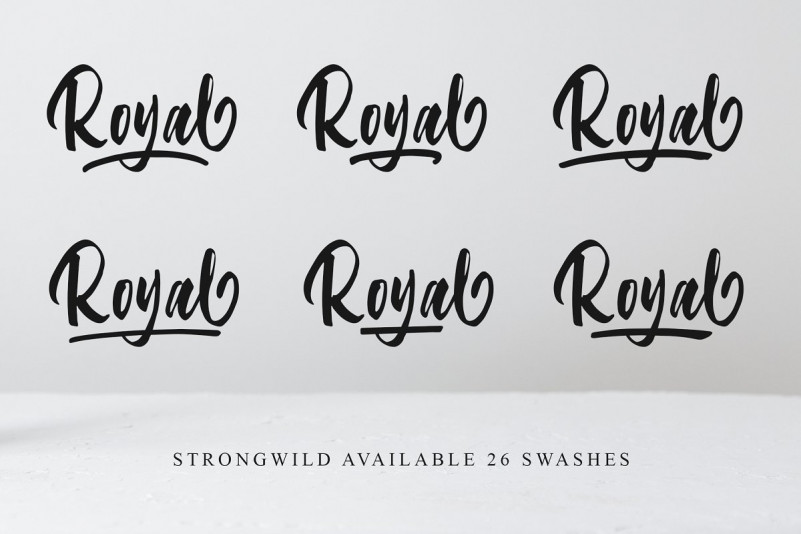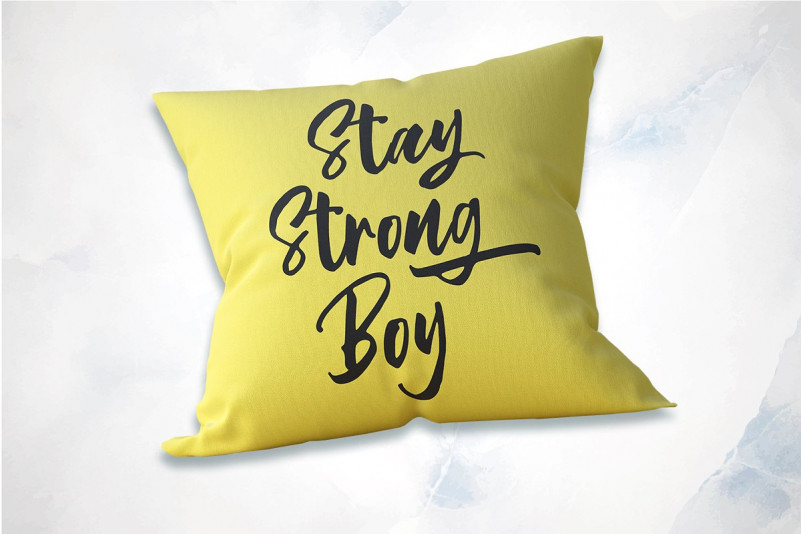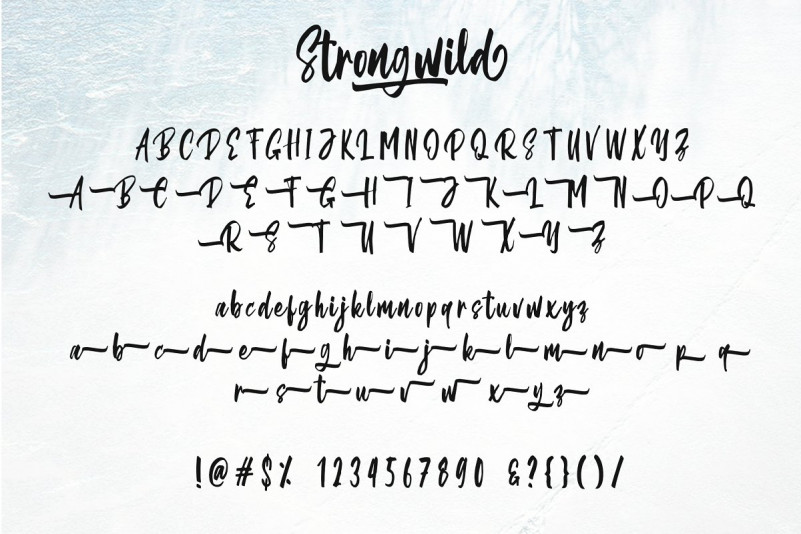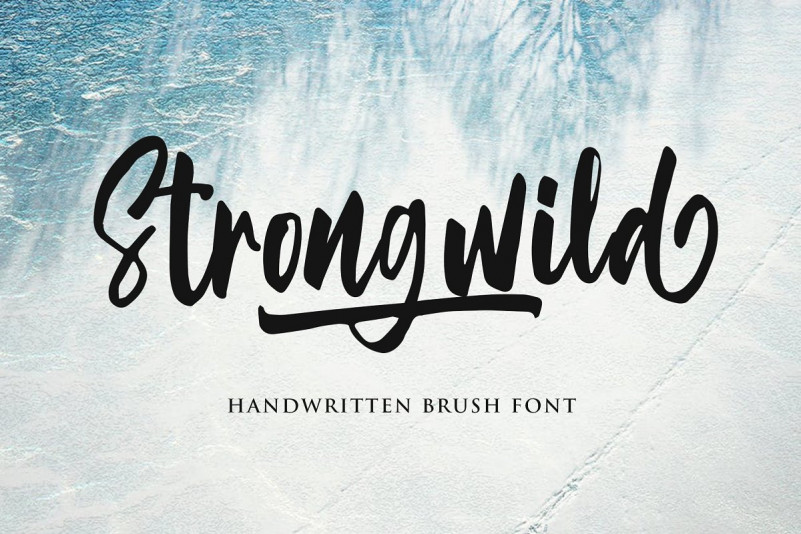
Strongwild Brush – Demo Font
Start a new day with a handwritten brush font. It’s a unique, cool and modern handwritten font. It’s hand look style makes it perfect for use in all your design projects. Introducing Strongwild Font. It’s designed and shared by Typefar. A handmade font using the brushpen! have consistent letters. Brave brush font. Available 26 swash . This font is perfect for your design such as printed pillow, t-shirt, video tumbnail, and others.